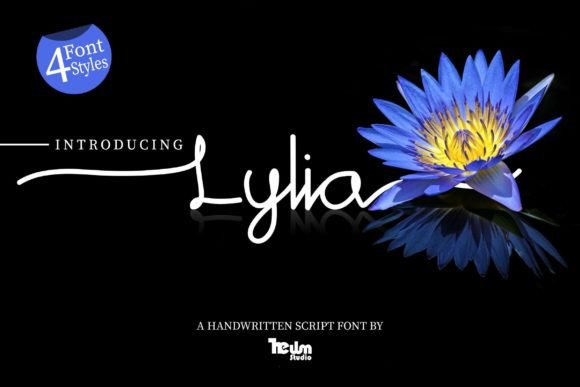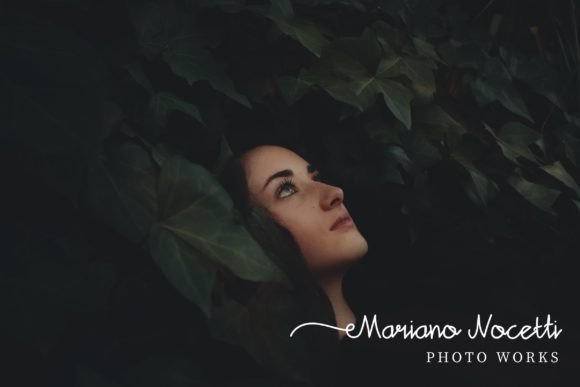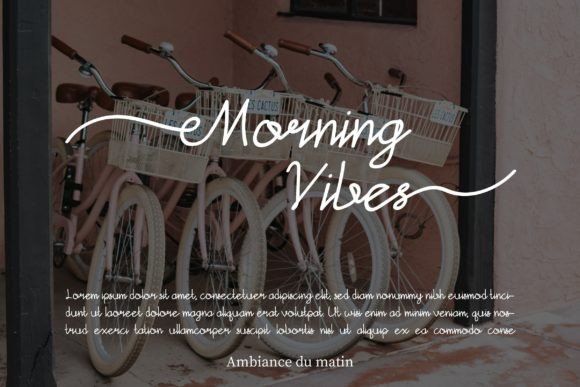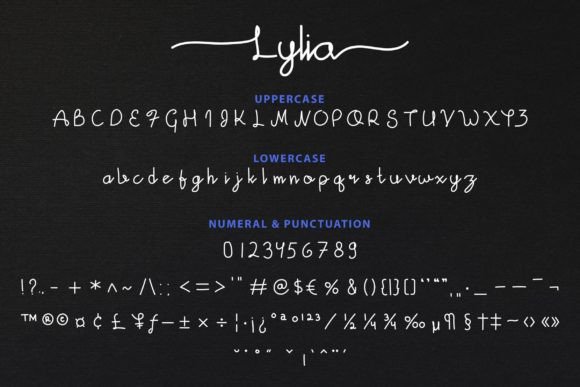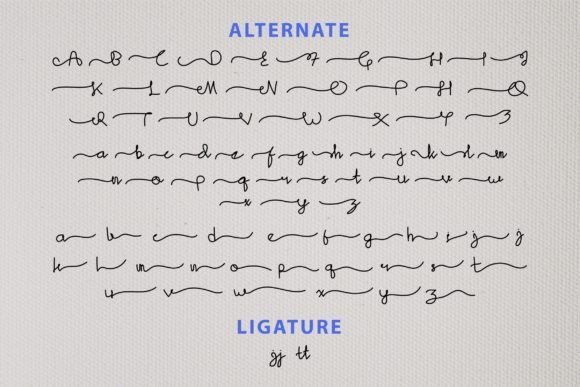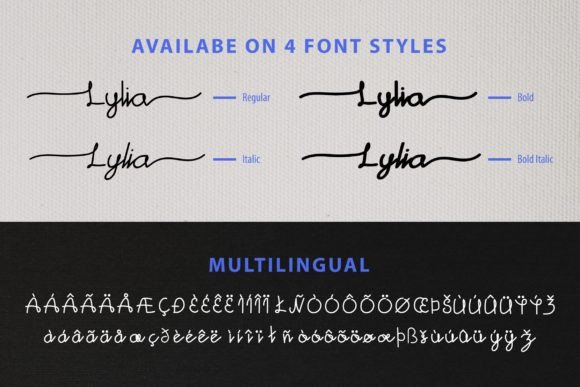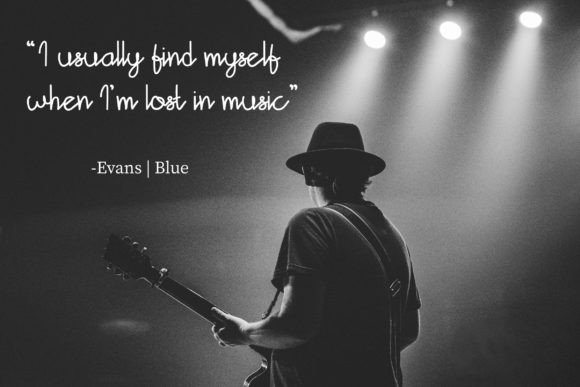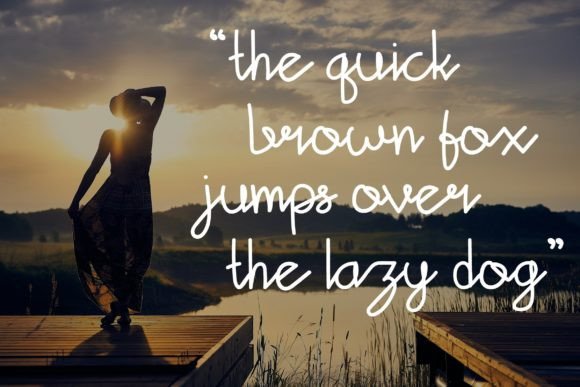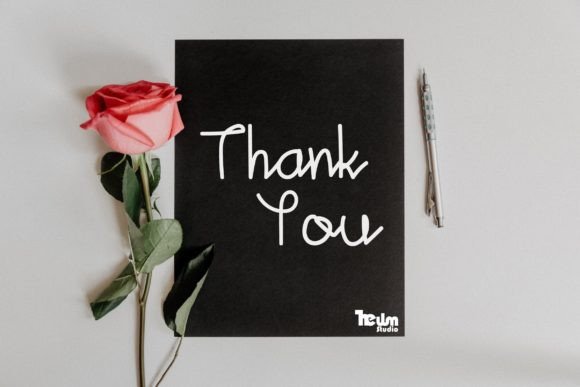
Lylia Font
About Lylia Font
Lylia is a stylish script font that draws inspiration from the exquisite beauty of lily flowers. Its elegant and flowing letterforms capture the grace and charm of these blooms, making it a stunning choice for a wide range of design applications. This font adds a touch of sophistication and romanticism to various projects, including wedding invitations, thank you cards, quotes, greeting cards, logos, business cards, and any other design that requires a handwritten touch.
The font’s graceful curves and intricate details reflect the delicate petals of lily flowers, creating a sense of natural beauty and timeless elegance. Lylia’s script style exudes a sense of refinement and sophistication, making it ideal for projects that aim to convey a sense of luxury and class. Whether you’re designing elegant wedding stationery, crafting heartfelt greeting cards, or creating a memorable logo, Lylia elevates the overall aesthetic with its stylish and graceful appearance.
One of the standout features of Lylia is its ability to add a personal and heartfelt touch to your designs. Its handwritten charm creates a connection with the audience, evoking emotions and conveying sincerity. The font’s versatility allows it to adapt to various design contexts, enhancing the visual appeal of your projects and leaving a lasting impression on viewers.
Incorporating Lylia into your designs not only adds a touch of natural beauty but also showcases your appreciation for intricate and elegant typography. Its stylish script design makes it a popular choice among designers who seek a font that embodies sophistication and grace. By choosing Lylia, you’re selecting a font that enhances your creativity and transforms your projects into works of art that captivate and inspire.
So, whether you’re designing exquisite wedding invitations, expressing heartfelt sentiments through greeting cards, crafting a memorable brand identity, or working on any other creative endeavor, let Lylia be your font of choice. Its stylish script inspired by lily flowers empowers you to create designs that radiate elegance and charm. Embrace the beauty of Lylia and watch your projects come to life with a touch of natural grace and timeless sophistication.